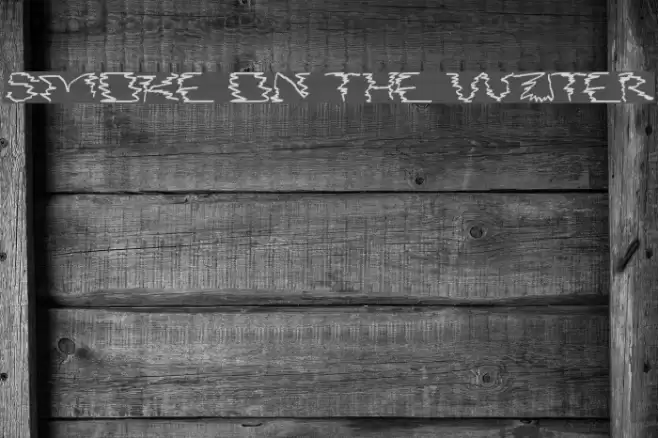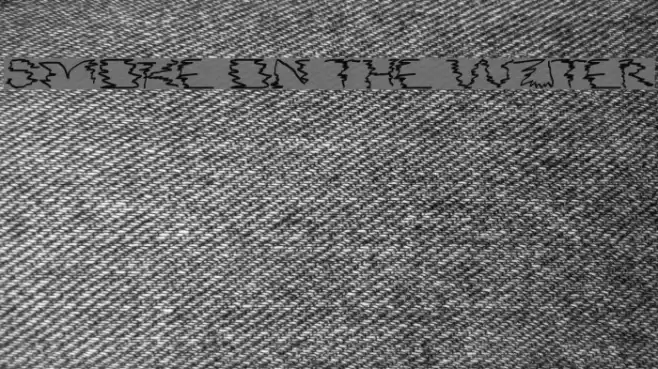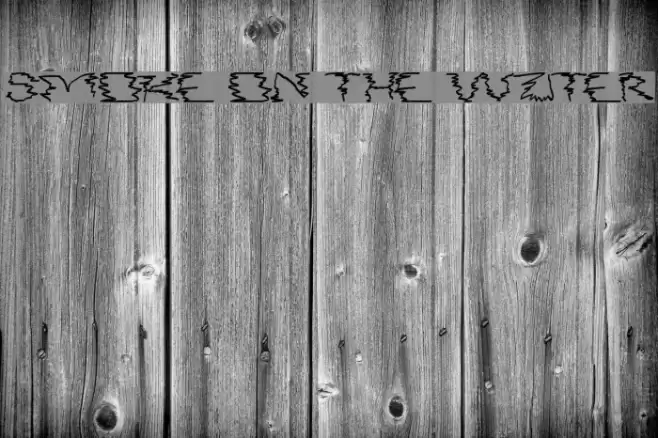
smoke on the water Font
This font features a jagged, distorted appearance reminiscent of smoke or electrical currents. The characters are irregular and dynamic, with each letter appearing to be in motion, creating a sense of energy and chaos. The strokes are uneven, with varying thicknesses that add to the font's unique style. The overall effect is striking and eye-catching, making it suitable for projects that require a bold and unconventional look. The font's design suggests movement and fluidity, making it ideal for creative and artistic applications.
A jagged, energetic font with a dynamic, smoke-like appearance from Uncategorized fonts.
- Proposed Projects: Album covers, event posters, video game graphics, and edgy branding materials.
- Overall Style: Modern, Energetic